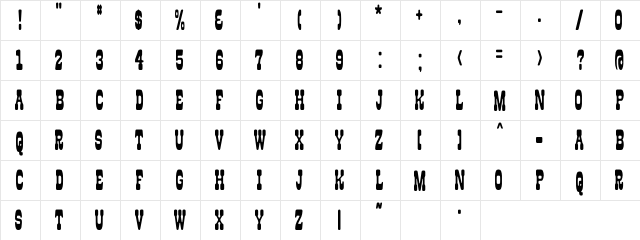
Beeper Regular
Design Context for Beeper Typeface
Beeper is a composed and adaptable typeface that performs quietly and consistently across a wide range of design contexts.